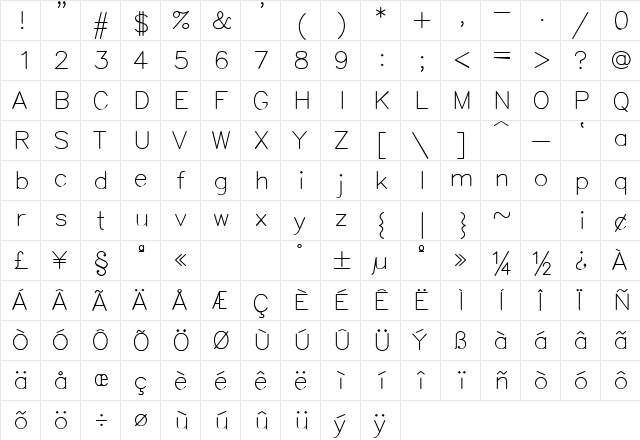
SWRomns Regular
Design Context for SWRomns Typeface
SWRomns offers clean, dependable letterforms without strong stylistic allegiance, making it a practical choice for designers who need flexibility.
Pro Tip: Use SWRomns in both headline and body roles to test its range before committing to a single application.